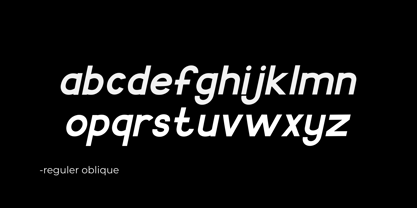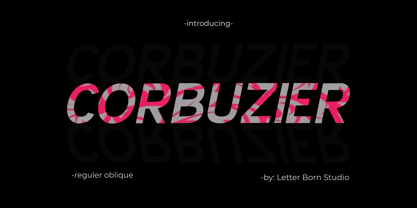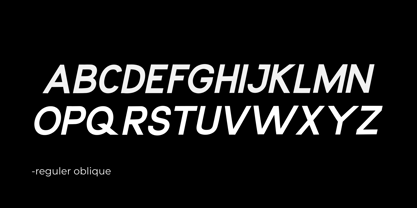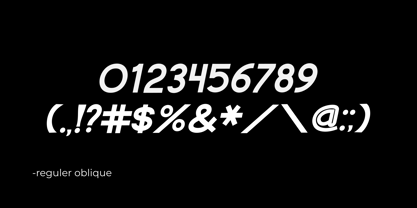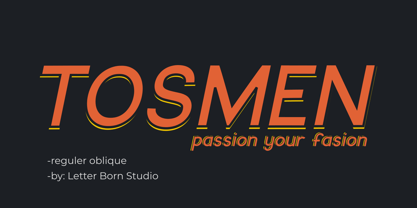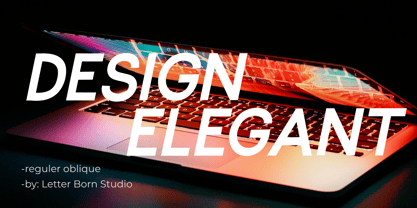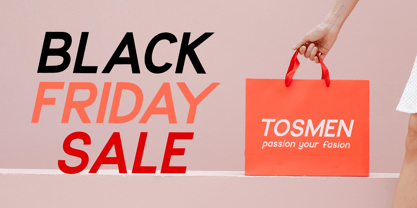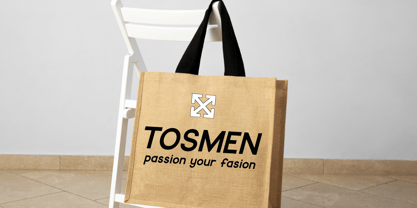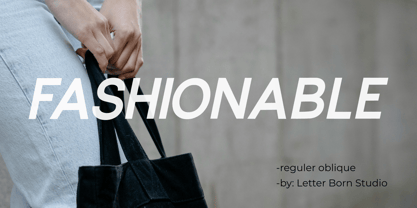
Corbuzier
by Letter Born Studio
The Corbuzier Font Family was designed by Firman Satrio and published by Letter Born Studio. Corbuzier contains 2 styles and family package options.
Corbuzier Regular Oblique is a modern font with a dynamic style that blends a professional and innovative impression. With its elegant slanted lines, this font offers a futuristic touch while remaining highly readable, making it ideal for designs that require a bold and contemporary look. Perfect for branding, headlines, or promotional materials that aim to stand out and capture attention. The uniqueness of each letter makes Corbuzier the perfect choice for designs that leave a strong and stylish impression.
Designers: Firman Satrio
Publisher: Letter Born Studio
Foundry: Letter Born Studio
Design Owner: Letter Born Studio
About Letter Born Studio
Letter Born Studio is a design foundry founded by Firman Satrio, focused on creating unique and character-driven fonts. Combining classic and modern elements, the studio designs typography that is not only functional but also artistic, with a strong attention to detail and high quality. Letter Born Studio aims to make a creative contribution to the graphic design world through captivating and meaningful fonts